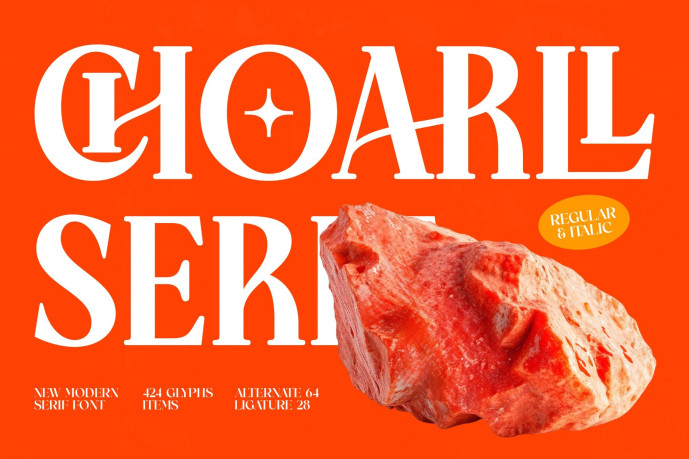
Choarll Font
Designer: timelesstypestudio
Choarll Font is a modern serif display font that blends timeless sophistication with bold, artistic precision. With 424 glyphs, 64 alternates, and 28 ligatures, this typeface offers versatility and distinction for branding, magazine layouts, posters, logos, and luxury packaging.
Featuring both Regular and Italic styles, Choarl Serif captures the elegance of classic typography with a fresh, modern rhythm. Its refined curves and strong contrasts make it perfect for designers seeking a statement font that balances and authority in every composition.